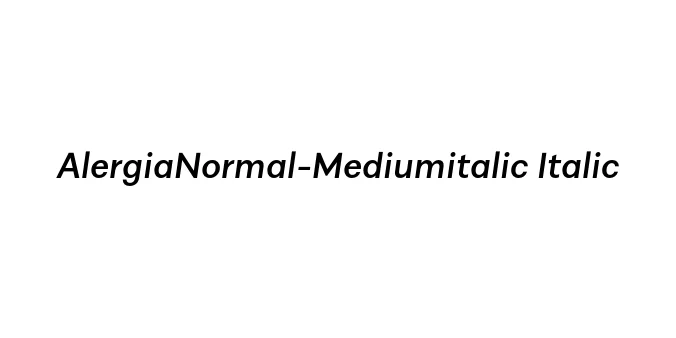
AlergiaNormal-Mediumitalic Italic
Designed by Mateusz Machalski
Alergia Normal is a comprehensive typeface family designed by Polish designer Mateusz Machalski. It represents a hybrid approach to typography, blending the rigid structures of geometric sans serifs with the subtle warmth and legibility of humanist styles. The "Normal" sub-family is engineered to provide a balanced typographic texture that works across a vast range of sizes and applications, from intricate print layouts to high-resolution digital displays.
The Medium Italic weight of the Alergia Normal family provides a sophisticated and energetic slant that enhances the rhythm of body text and headlines. It was meticulously crafted to ensure that the character forms remain distinct even at smaller point sizes, making it an excellent choice for professional editorial design, corporate branding, and modern user interfaces that require a touch of personality without sacrificing clarity.
AlergiaNormal-Mediumitalic Italic Best Uses
Perfect for pull quotes, captions, and emphasizing text in high-end magazines.
Ideal for creating modern, clean corporate identities and logo marks.
Excellent for headers, navigation menus, and call-to-action buttons.
Effective for brochures, posters, and professional presentation decks.